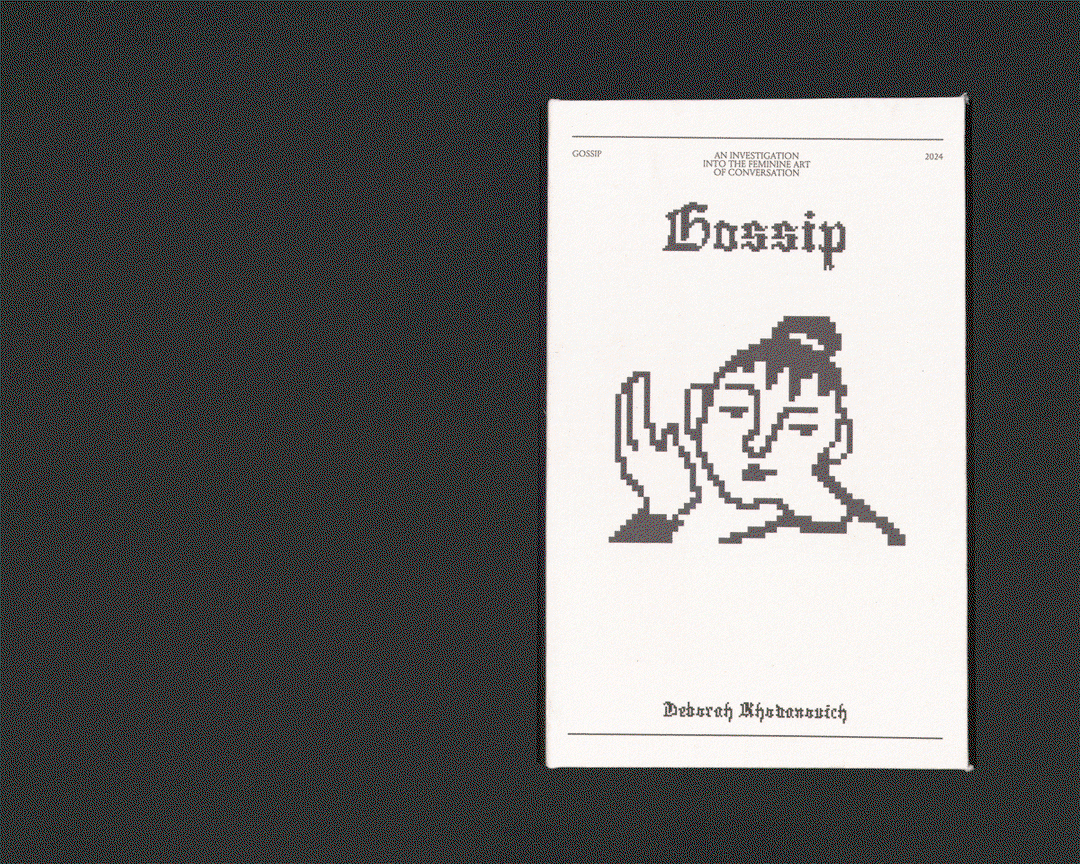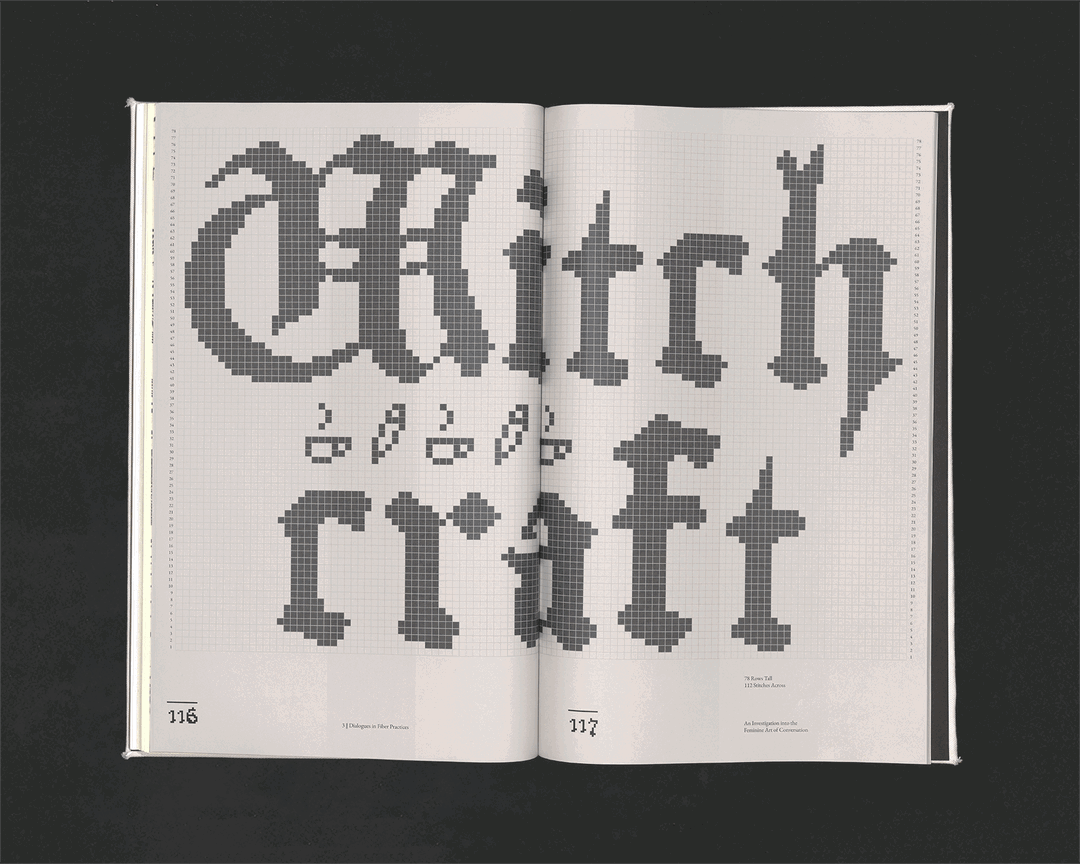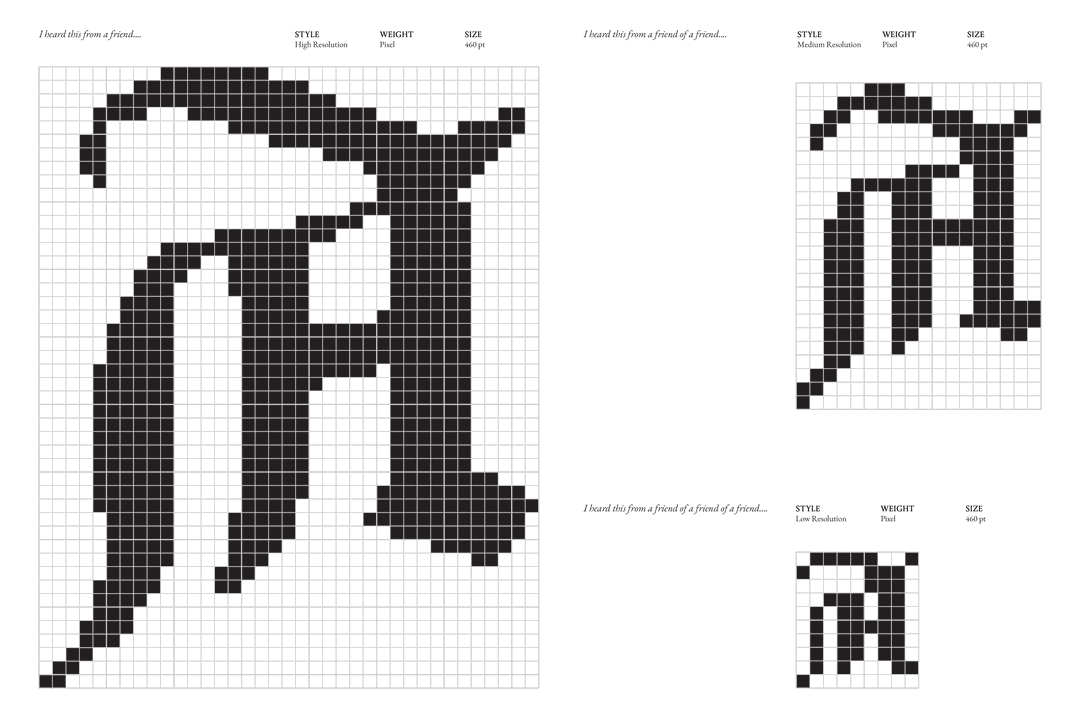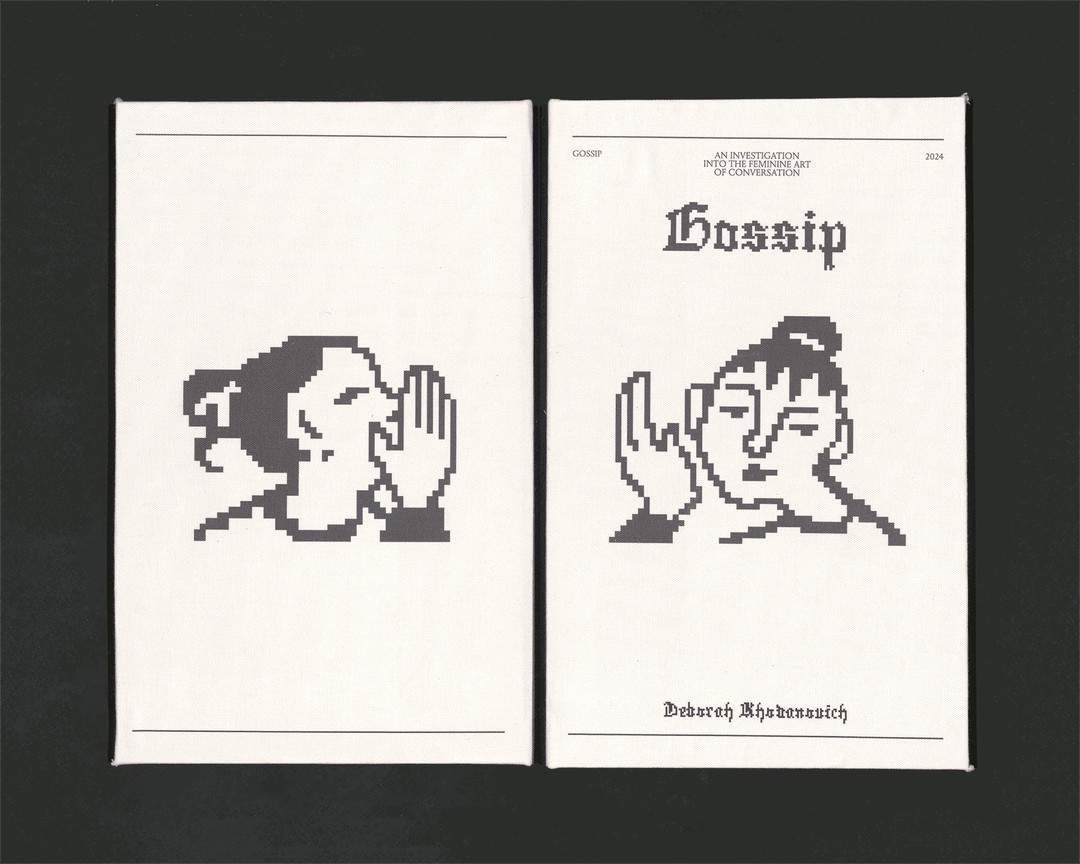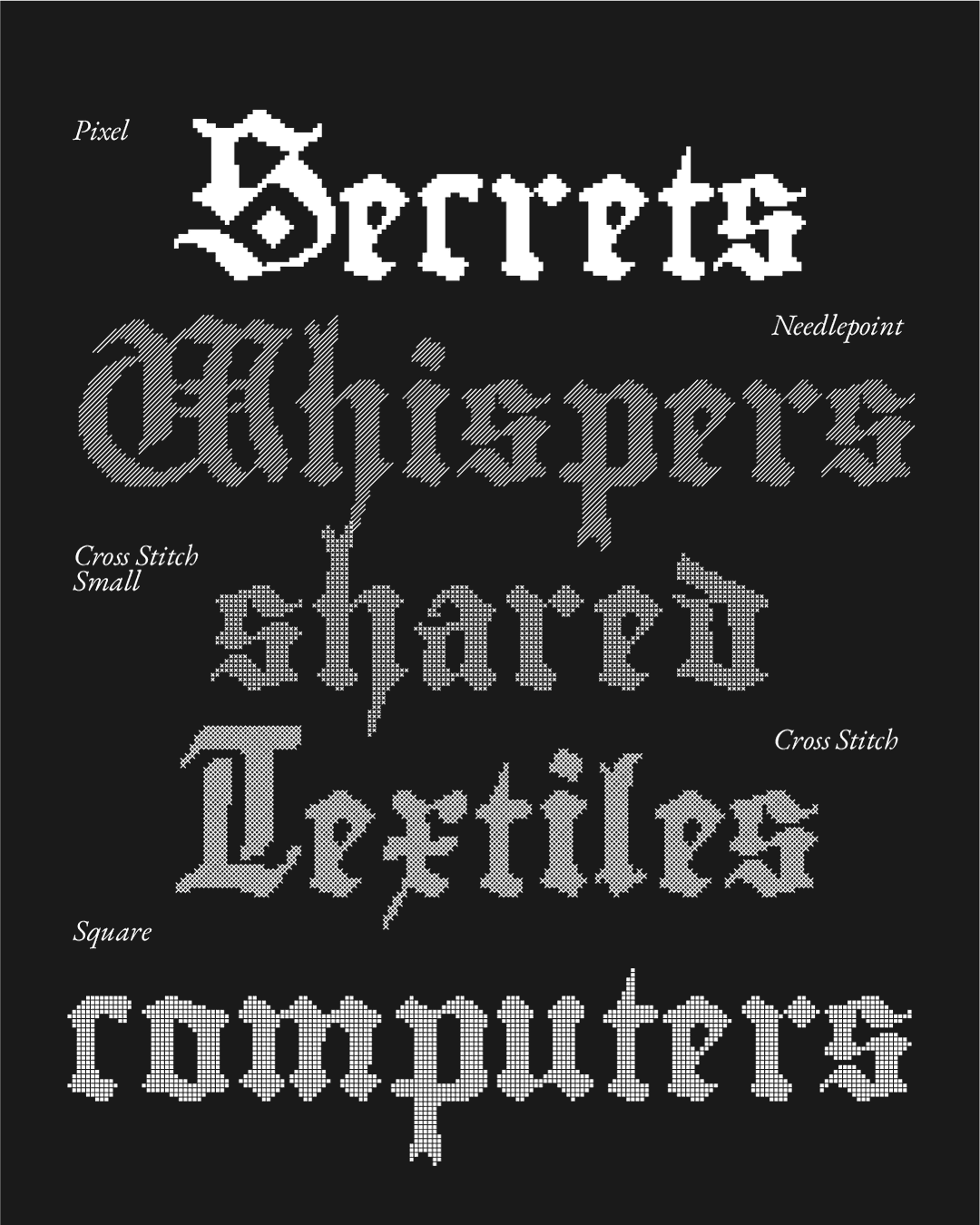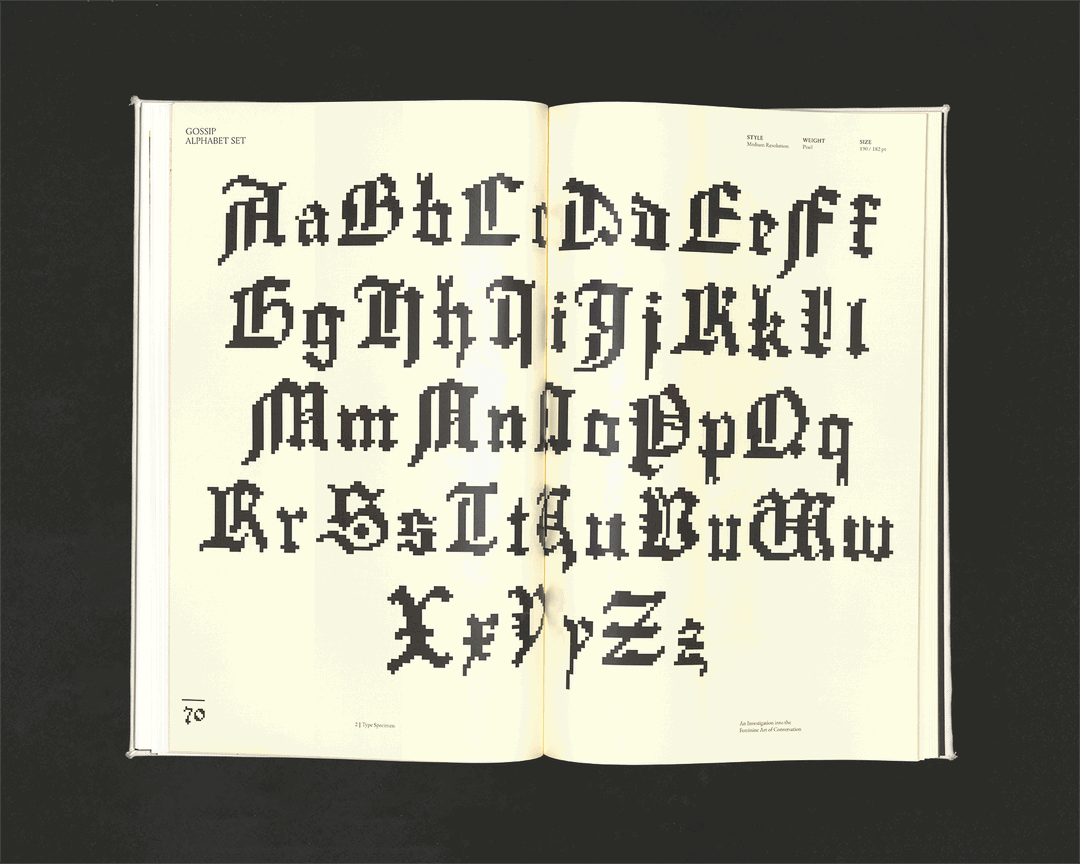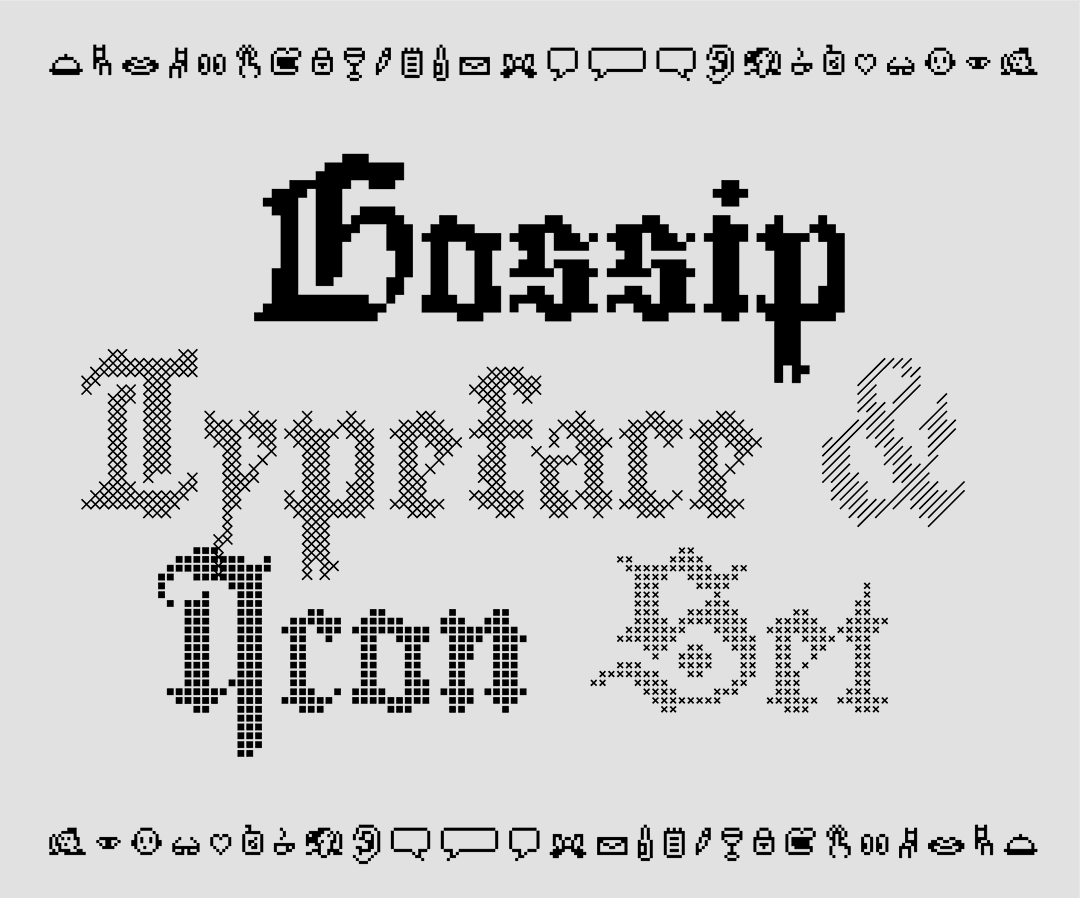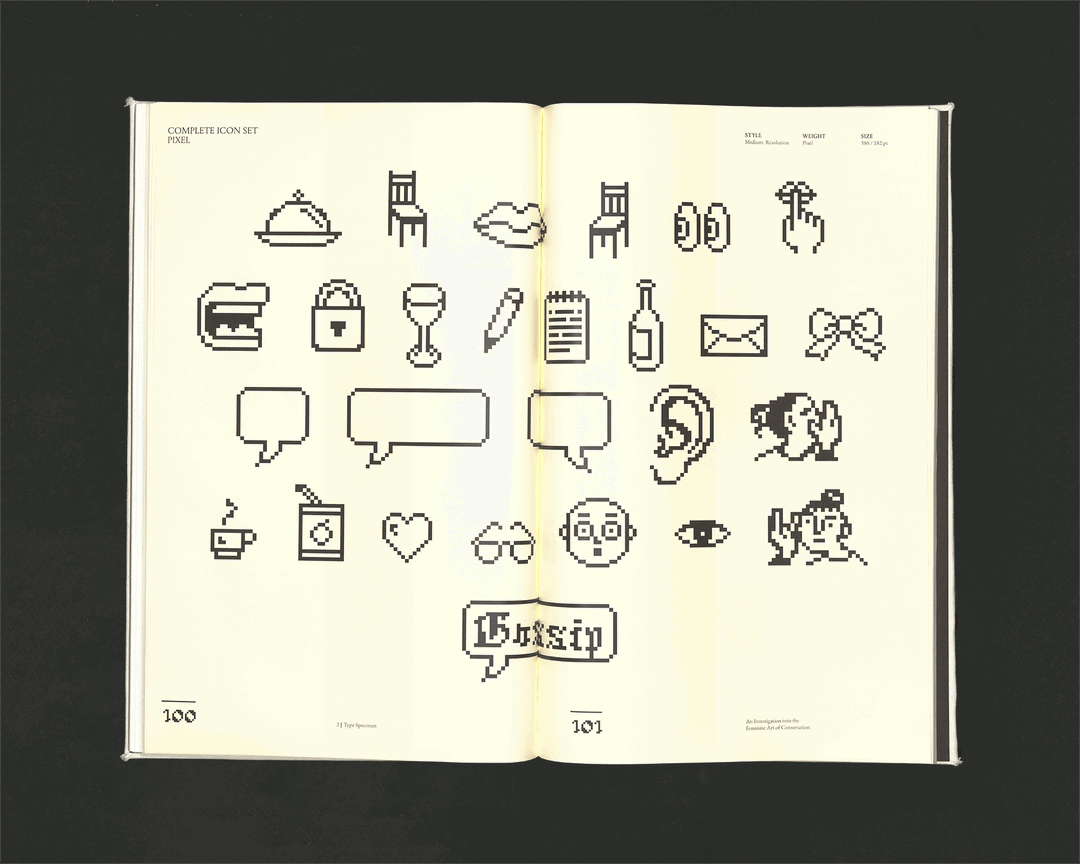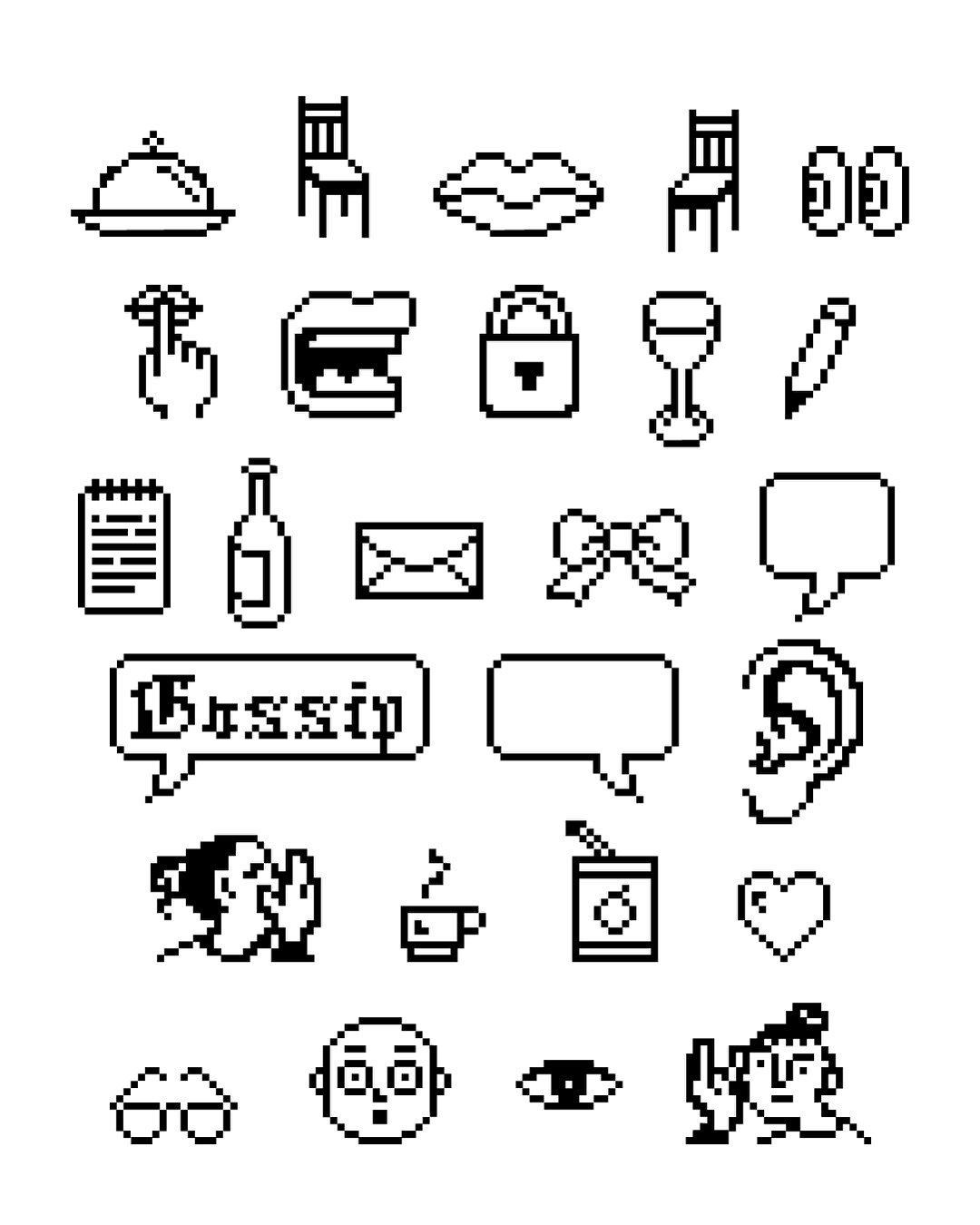
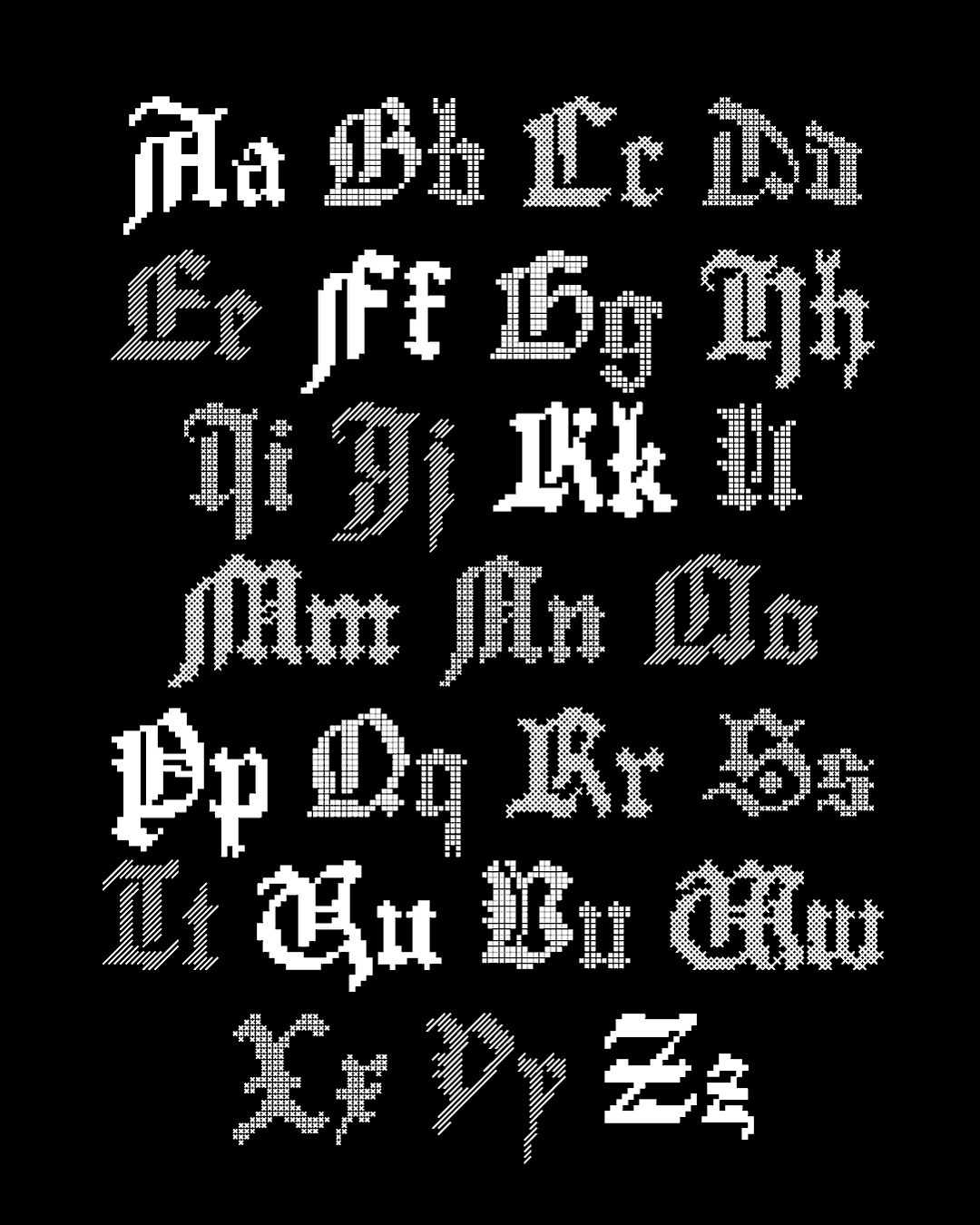
Deborah Khodanovich’s font honours the most trivialised form of communication – gossip
Inspired by a rich history of women in crafting spaces, this graphic designer merges thoughtful typeface design with embroidery, knitting and lace to create a homage to the often demonised art of gossip.
Deborah Khodanovich, a Toronto-born graphic designer who’s currently in grad school at RISD, thinks about gossip differently than most people. “Gossip and blackletter typography, at first glance, couldn’t feel more opposite,” says Deborah. Whereas gossip is whispery and covert – blackletter roots itself in permanence, weight and authority. However, both share an interesting history. “Gossip, often weaponised against women, has been trivialised as idle chatter, despite its role in building and sustaining social networks. Blackletter, too, carries the weight of being both revered and feared, a font that once represented the pinnacle of printed knowledge.”
Her typeface Gossip – a blackletter pixel font – connects text with textiles whilst bringing something that feels ancient to the web. In equal parts modern and gothic, the typeface takes inspiration from Susan Kare’s original Mac icon sketches and Gutenberg’s Textura, seeking to digitise the ancient for a new platform of information dissemination. The whole point is that it can easily be turned “back into textiles”, considering textiles happen to use pixel grids too – therefore creating an infinite loop of changing information that transcends media, just like gossip itself.
“I’ve been obsessed with gossip since forever. I’m a very relationship oriented person, with my love and care for my friends & community (and vice versa) being quite a big value driver,” says Deborah. “Gossip to me is far from a bad thing, but rather a tool that communities use to understand and uphold their own values, shared beliefs and to be able to take care of one another through knowing what’s going on in each other’s lives.” Determined to make a meaningful commentary on gossip through typography, Deborah researched how gossip has been demonised by “the church and the patriarchy to keep women silent” in the 16th and 17th centuries. Gossip can be seen as threatening, but also useful because it’s informal. Not only can it evade censorship, it also exists outside of the concrete nature of the written word – instead, gossip is fleeting, personal and untraceable. “I’ve also been calling gossip a craft, rather than an art, because I think it’s a skill to master and understand,” says Deborah.
In Deborah’s book Gossip: An Investigation Into The Feminine Art Of Conversation, the relationship between textiles and gossip is central. Whilst taking a textiles class, Deborah learned about historical safe spaces where women were allowed to gather together without men – these were usually crafting spaces – and Deborah hypothesised that, due to arduous long shifts of knitting, weaving and embroidery, this is where gossip prevailed.
Gossip is also a revival of sorts. Gutenberg’s Textura was the first font he made with a moveable type to typeset the Bible in. Shortly after, blackletter became a key part of visual communication for its permanence and weight, but in Deborah’s view, it’s linked to histories of control, which gossip naturally challenges. In a humorous twist, Deborah takes the font made for the Bible and sets a font related to gossip in it, reclaiming the church’s demonisations of groups and unions whilst creating a typeface that is accessible across the digital and the analogue.
Deborah used program Glyphs to create something that resembled 16th century designs for lace and embroidery as well as keyboard mapped versions of Susan Kare’s Cairo glyphset, using the pixel map just like gridded paper. “Since weaving and punchcard knitting is known to be some of the first ‘coding’ that we have, it’s what led to the binary system of code, Ada Lovelace with the first computer, and all that good stuff,” says Deborah. “There’s already a natural relationship between textiles and computers, so to have these pixels of our web and textiles also overlap is just ‘chef’s kiss’.”
Deborah Khodanovich: Gossip (Copyright © Deborah Khodanovich, 2025)
Deborah Khodanovich: Gossip: An Investigation Into The Feminine Art Of Conversation (Copyright © Deborah Khodanovich, 2025)
Deborah Khodanovich: Gossip (Copyright © Deborah Khodanovich, 2025)
Deborah Khodanovich: Gossip: An Investigation Into The Feminine Art Of Conversation (Copyright © Deborah Khodanovich, 2025)